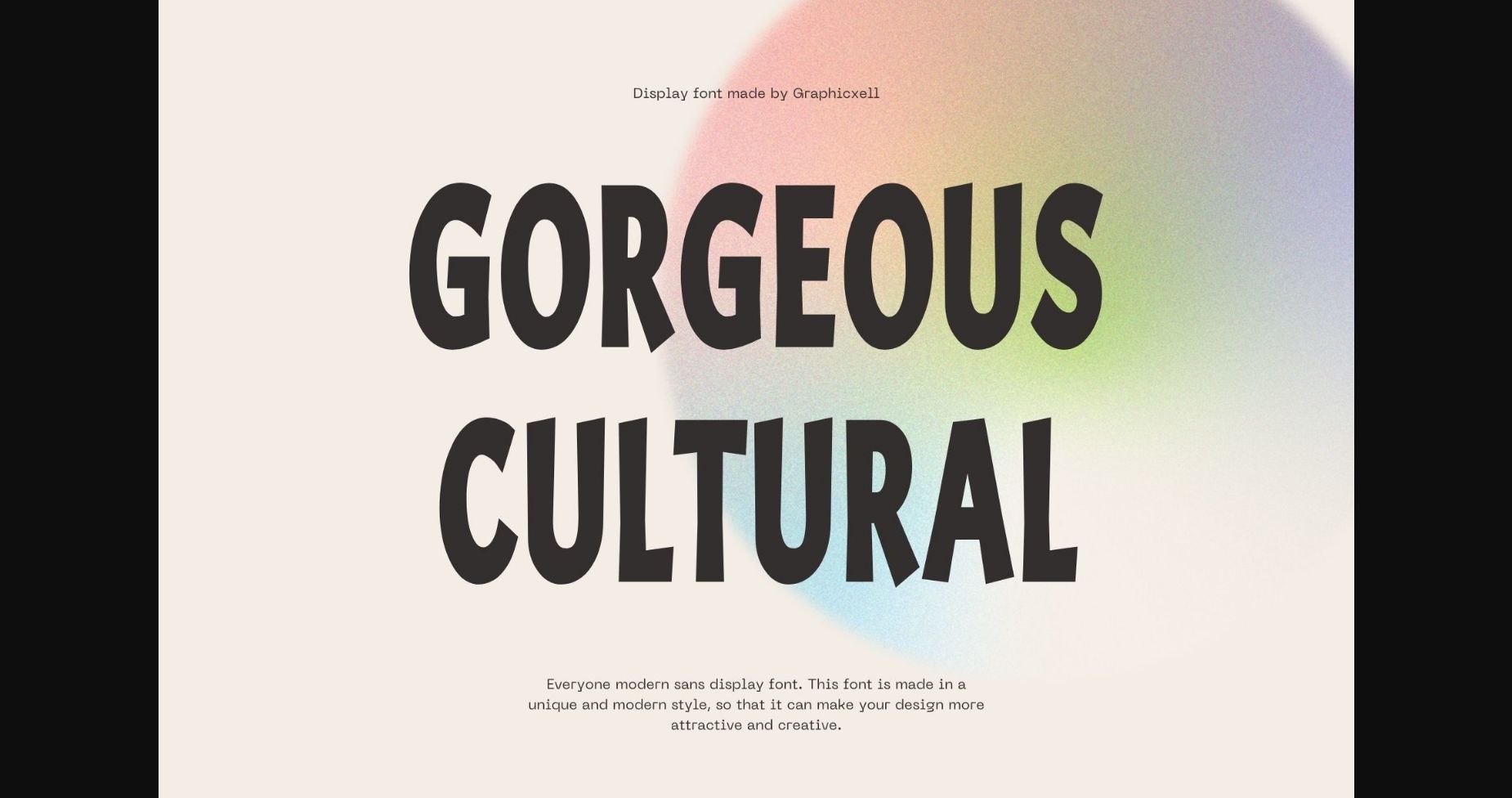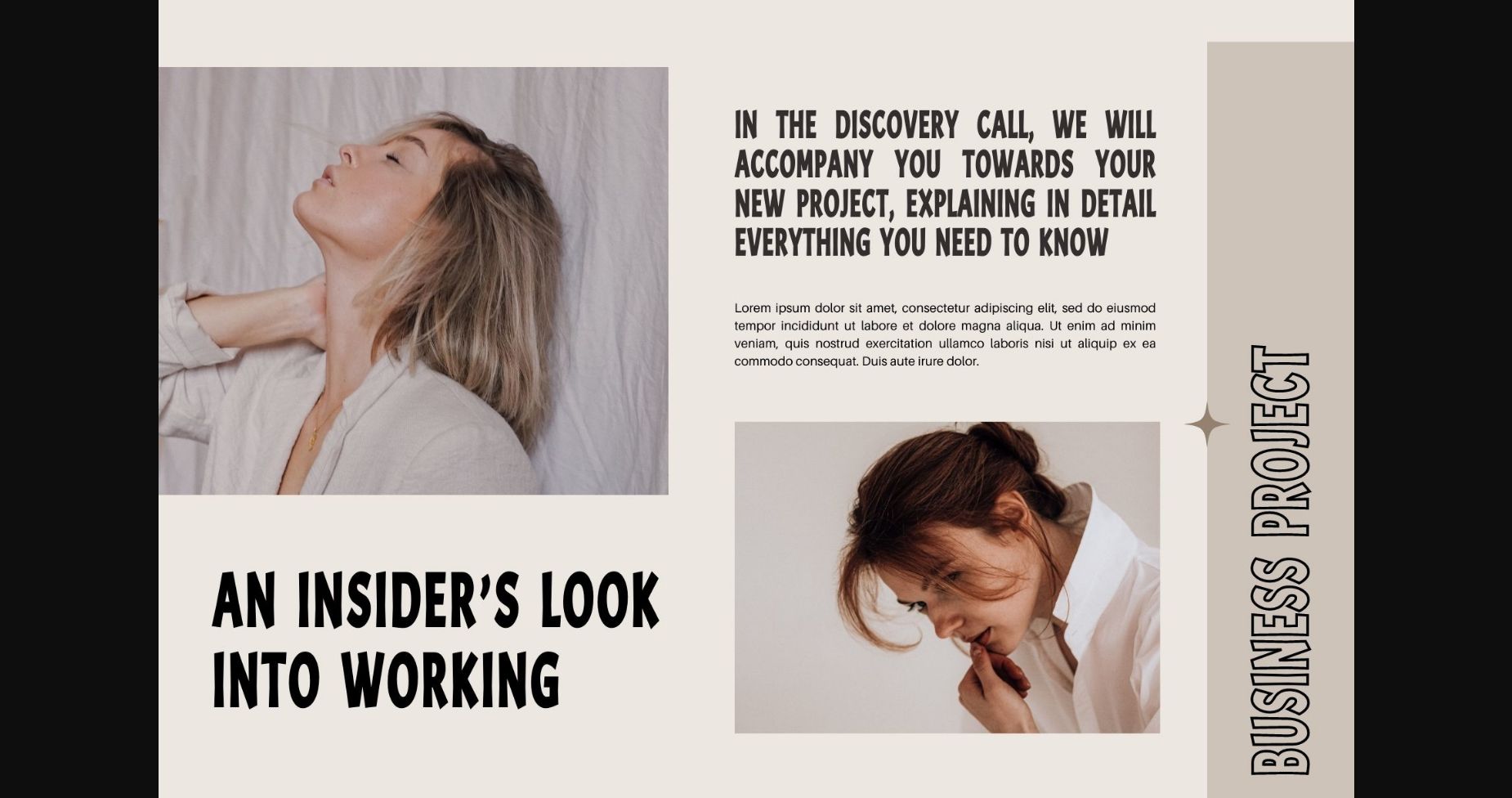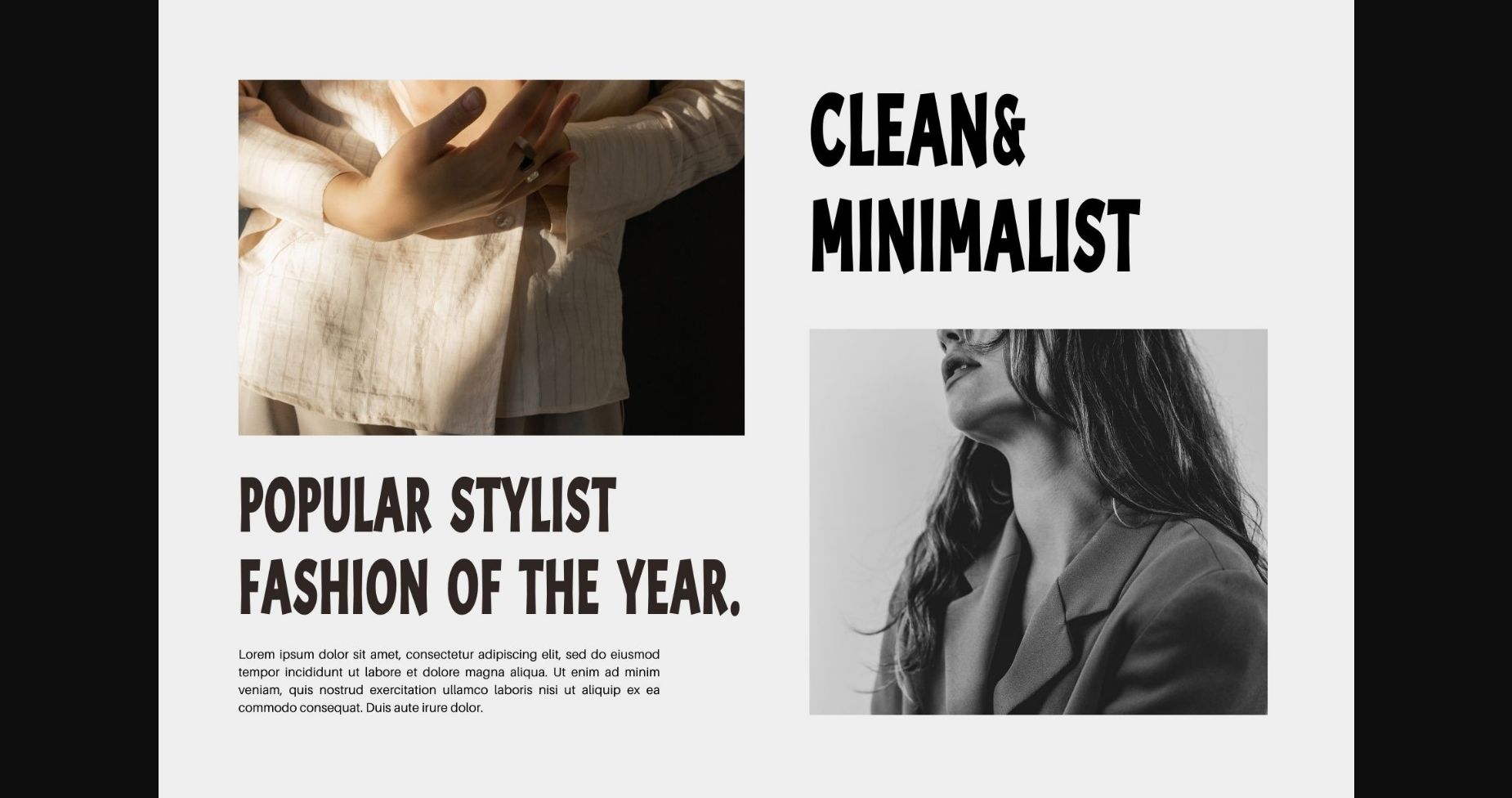
About Gorgeous Cultural Font
Gorgeous Cultural is a modern and simple sans serif font that embraces minimalism and contemporary design trends. With its clean and geometric letterforms, this font exudes a sense of sophistication and versatility. The even stroke widths and balanced proportions make it highly legible and suitable for various design applications, from branding and packaging to editorial and web design.